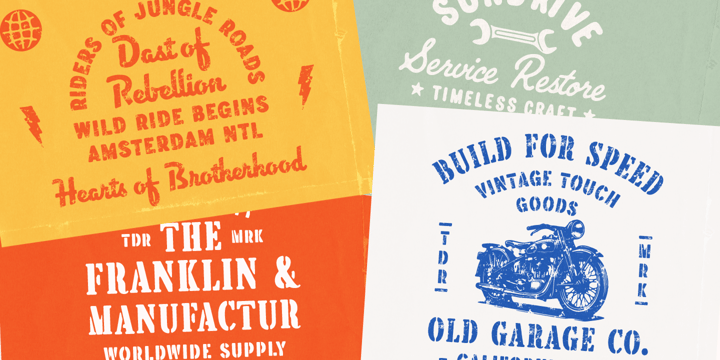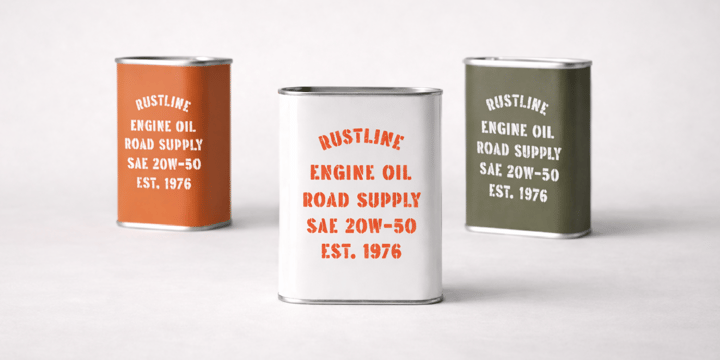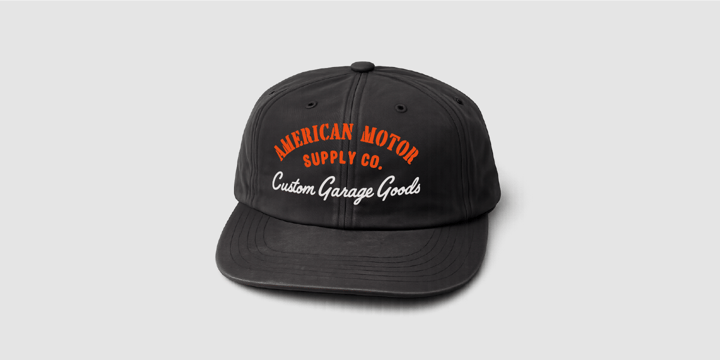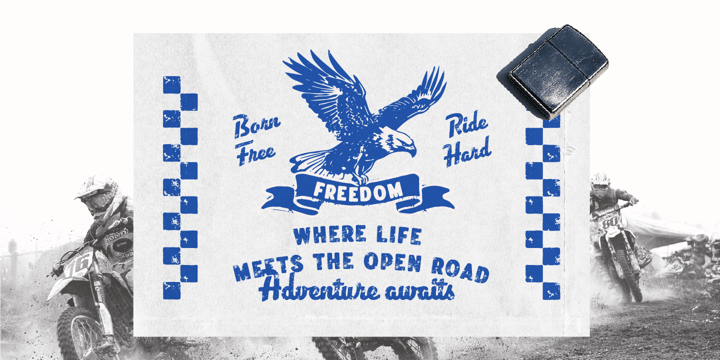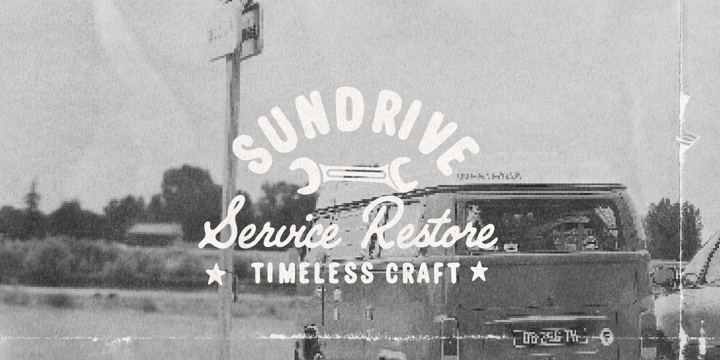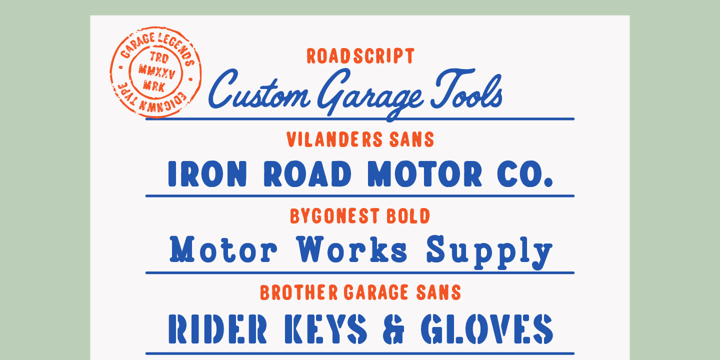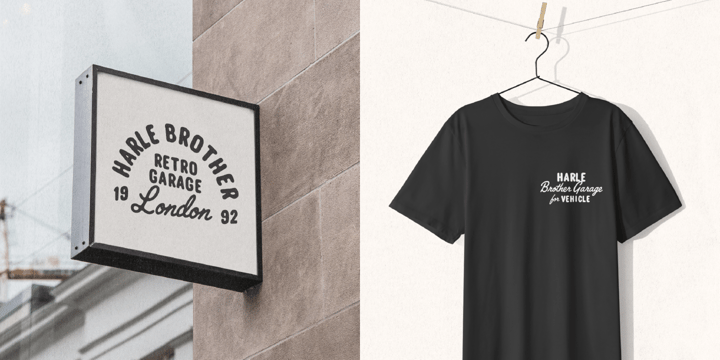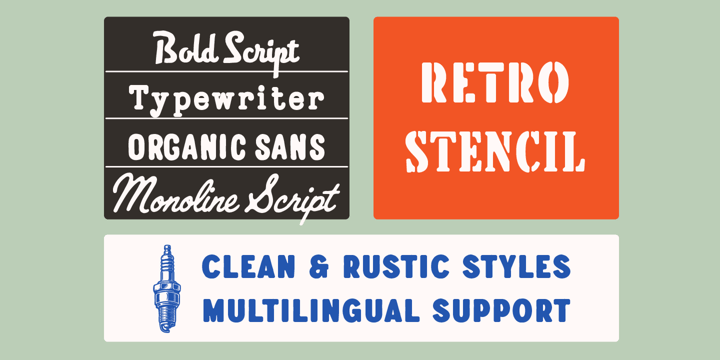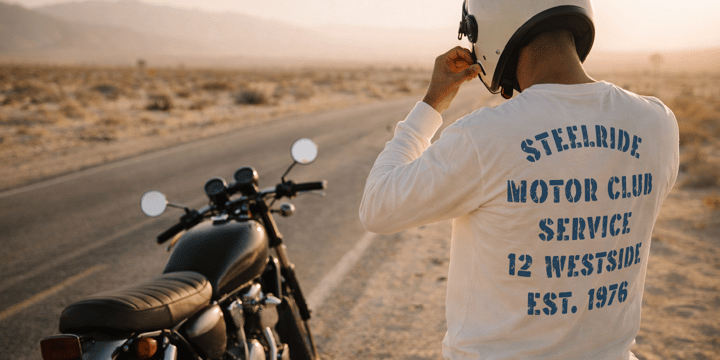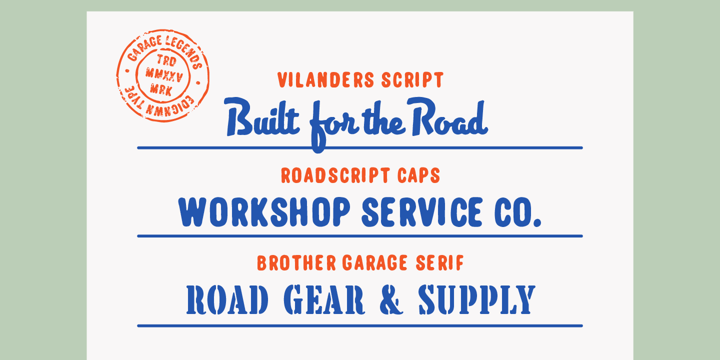
Garage Legends Font Bundle
Garage Legends Font Bundle is a premium, hand-curated collection of rugged display typefaces crafted to power authentic motorcycle and garage-inspired branding. Built for visual branding designers working on retro motorcycle apparel, workshop identities, custom bike shops, and vintage mechanical culture, this bundle delivers bold character, industrial attitude, and classic Americana aesthetics—without the need to hunt across multiple font families.
Carefully selected from Edignwn Type’s display library, Garage Legends combines expressive scripts, strong industrial sans styles, and rugged stencil-inspired lettering that reflect the spirit of motorcycle garages, custom builders, and road culture. Each typeface is available in Regular and Rustic styles, allowing you to switch between clean branding designs and authentic distressed garage aesthetics.
This bundle includes 7 premium typefaces:
Roadscript
Roadscript Caps
Vilanders Sans
Vilanders Script
Bygonest Bold
Brother Garage Sans
Brother Garage Serif
Features:
7 curated display typefaces from Edignwn Type
Regular and Rustic versions for clean or vintage distressed styles
Mix of script, sans, serif, and stencil-inspired lettering
Some fonts include uppercase, lowercase, alternates, ligatures, symbols, and punctuation
Some fonts include all-caps, numerals, symbols, and punctuation
Multilingual support
From motorcycle apparel brands and garage signage to mechanic merchandise and vintage workshop graphics, Garage Legends Font Bundle gives designers a powerful typographic toolkit built for retro motorcycle culture—delivering bold character, mechanical authenticity, and timeless garage style in one complete bundle.